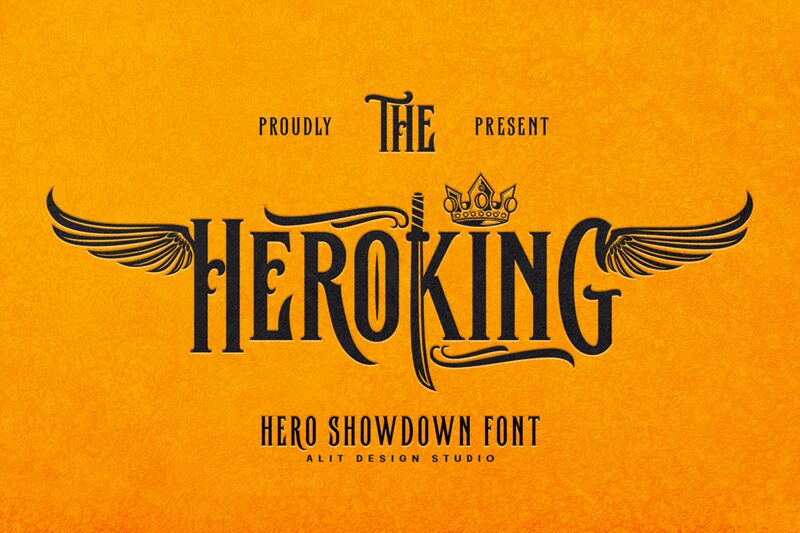
Heroking, crafted by Alit Design, stands at the intersection of tradition and innovation, embodying a modern twist on gothic sensibilities. Its assertive presence is marked by a condensed stance, commanding attention with an air of authority and strength. The font's characters boast sharp contrasts and clean lines that echo architectural grandeur, while its sleek simplicity ensures versatility.
Ideal for branding that seeks to make a bold statement or projects requiring an infusion of character without overwhelming complexity, Heroking is suited for logos, headlines, and titles where its distinctive contours can shine. Its modern gothic flair becomes an asset in design contexts that aim to evoke timelessness with a contemporary edge.
Heroking